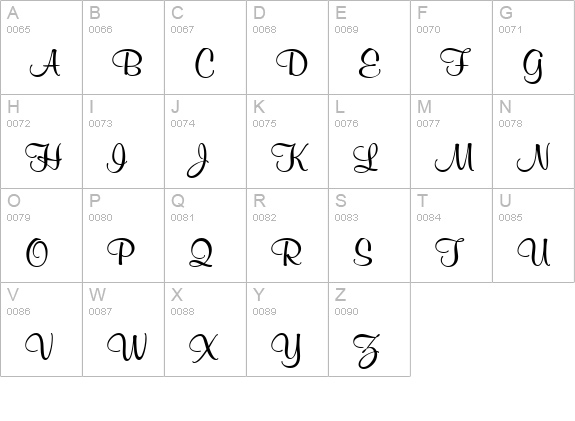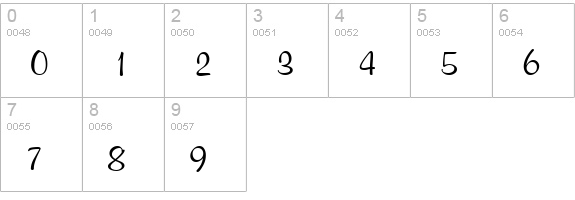
QTMerryScript Regular Font Details
QTMerryScript Regular is the standard, neutral variant in the QTMerryScript typeface family \xE2\x80\x94 well suited to general body text, paragraphs, and standard typographic work.
QTMerryScript Regular font is a beautiful and elegant typeface that adds a touch of sophistication to any design project. Its graceful curves and flowing strokes create a harmonious balance, making it perfect for invitations, greeting cards, advertisements, and more. This font features a timeless and classic style, making it suitable for both formal and casual settings. Whether you're designing wedding invitations, creating a logo, or crafting a personalized gift, QTMerryScript Regular font will add a touch of charm and elegance to your work. The versatility of QTMerryScript Regular font is truly remarkable. With its clean and legible letterforms, it is easy to read even at small sizes, making it ideal for body text in printed materials or on digital screens. Its bold and confident presence also makes it a great choice for headlines and titles, instantly grabbing the attention of the reader. What sets QTMerryScript Regular font apart is its availability for free download at FontsMarket.com. This means that you can enjoy the beauty and versatility of this font without any cost. Whether you're a professional designer or an amateur enthusiast, this font is freely available to enhance your creative projects. Don't miss the opportunity to add QTMerryScript Regular font to your font library. Download it for free at FontsMarket.com and unlock a world of possibilities for your designs. With its timeless elegance and effortless beauty, QTMerryScript Regular font is sure to become a staple in your typographic toolbox.